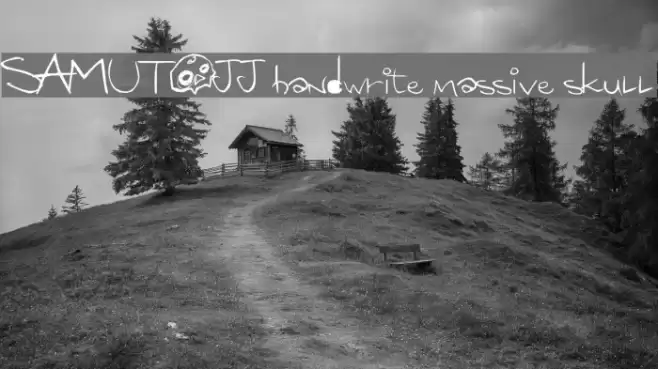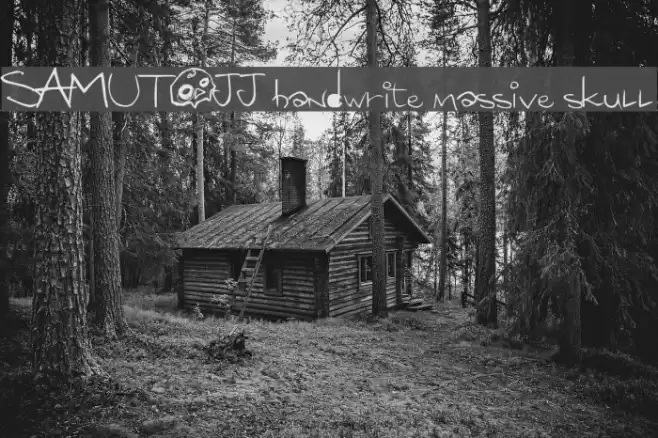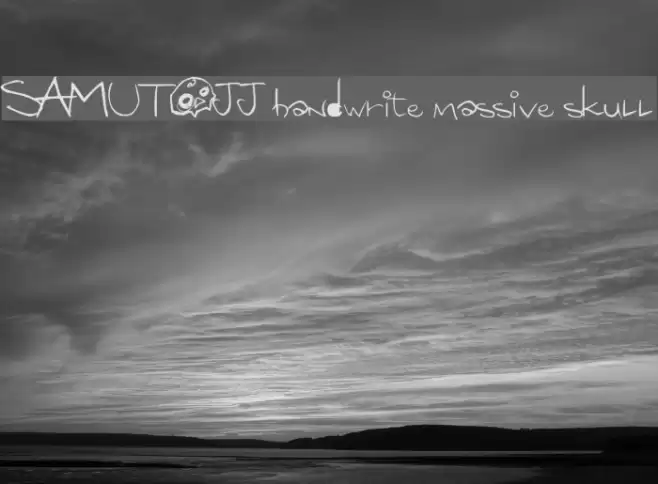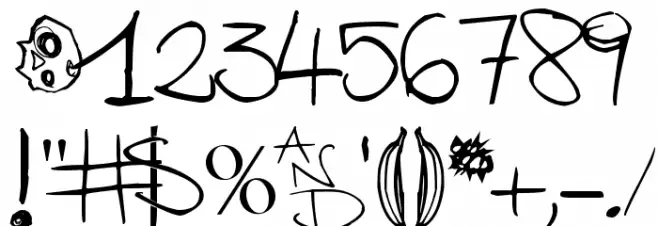
SAMUTOJJ handwrite massive skull Font
SAMUTOJJ handwrite massive skull Description
This font exudes a playful and edgy vibe with its hand-drawn, irregular strokes and whimsical skull motifs integrated into certain characters. The uppercase letters are bold and slightly chaotic, with varying line thickness that adds a dynamic feel. Lowercase letters maintain this quirky style, offering a unique blend of creativity and rebellion. Numbers are similarly styled, with exaggerated curves and angles. Special characters continue the theme, incorporating skull designs and unconventional shapes. The overall appearance is both artistic and unconventional, making it perfect for projects that require a bold statement.
A playful, edgy font with hand-drawn strokes and whimsical skull motifs from Uncategorized fonts.